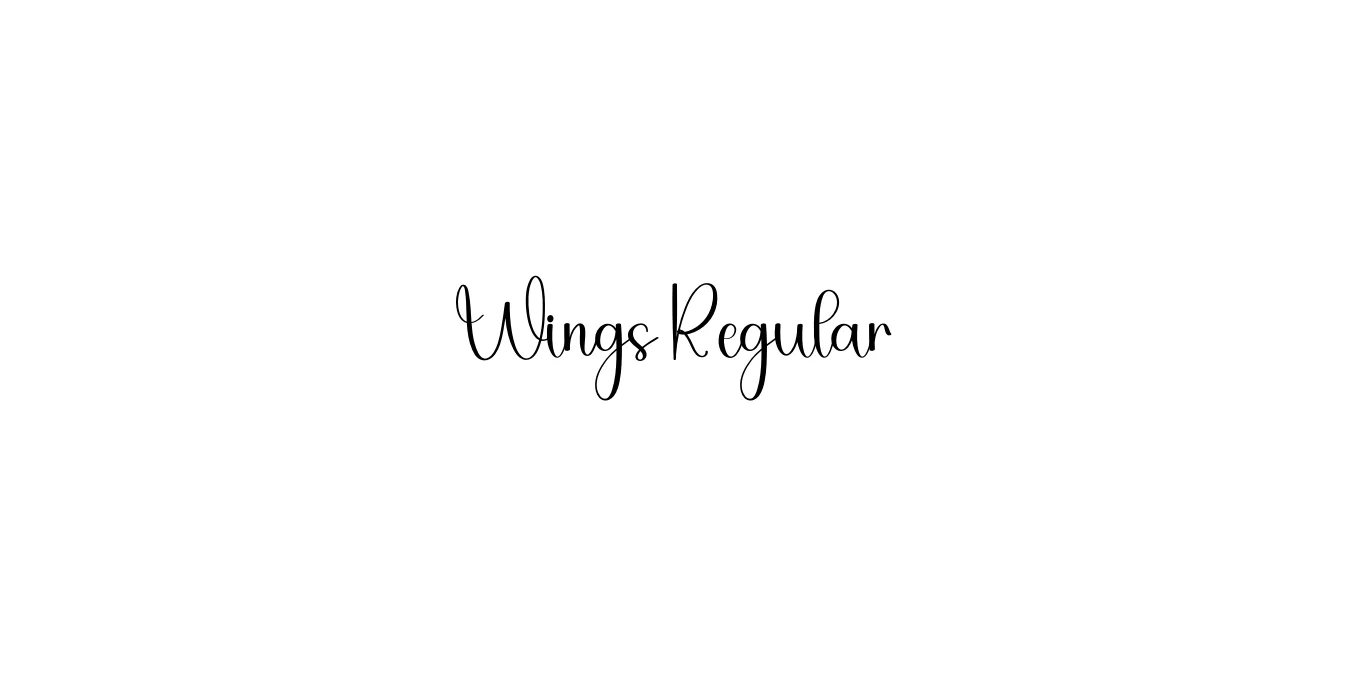
Wings Regular
Designed by Typefactory
| Category | Script / Decorative |
Wings Regular is a masterfully designed script typeface that captures the essence of motion and fluid elegance. Created by the talented team at Typefactory, this font features graceful, sweeping strokes that mimic the effortless glide of wings through the air. Its balanced proportions and refined curves make it an excellent choice for designers seeking a sophisticated aesthetic that bridges the gap between traditional calligraphy and contemporary digital design.
The versatility of Wings Regular allows it to perform exceptionally well in both print and digital mediums. Each character is meticulously crafted to ensure seamless connections, providing a natural, hand-drawn appearance that adds a personal touch to any project. Whether used for high-end fashion branding or delicate wedding stationery, this font maintains a high level of legibility while offering a distinct visual flair that commands attention without overwhelming the viewer.
Wings Regular Best Uses
Ideal for creating luxurious logos and high-end corporate identities.
Perfect for elegant invitations, RSVP cards, and place settings.
Great for eye-catching Instagram quotes and lifestyle graphics.
Adds a sophisticated touch to magazine headers and feature articles.